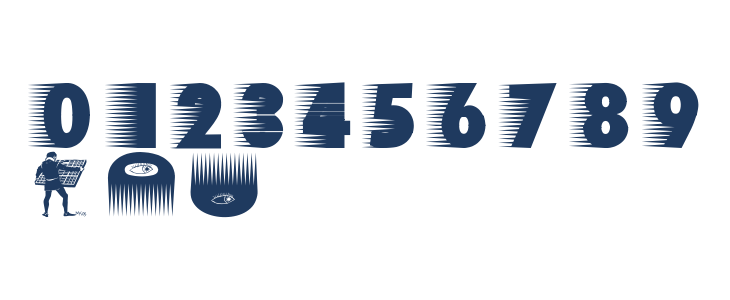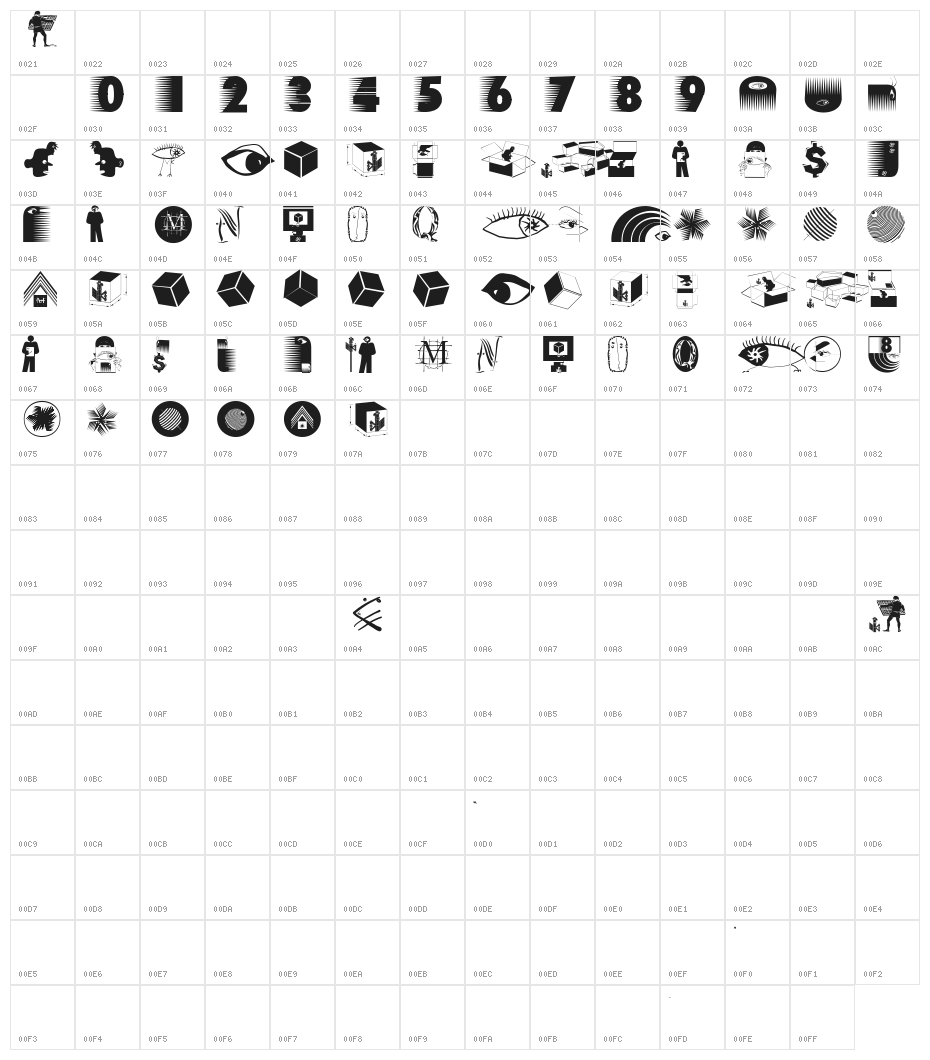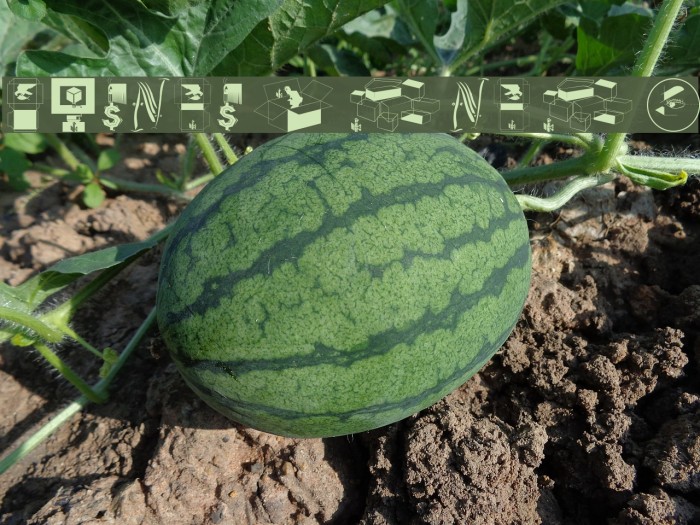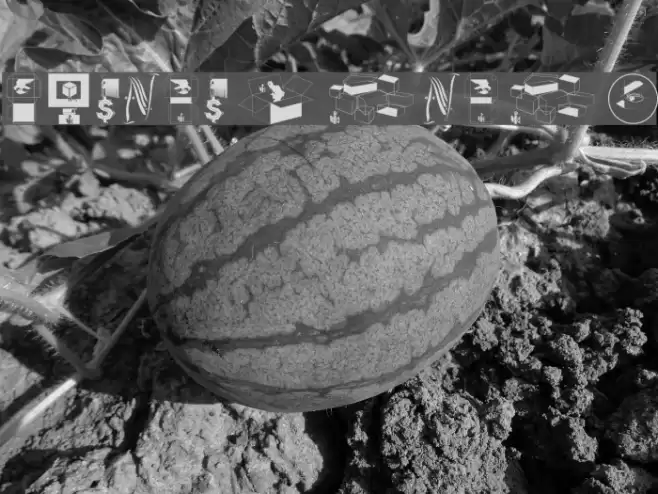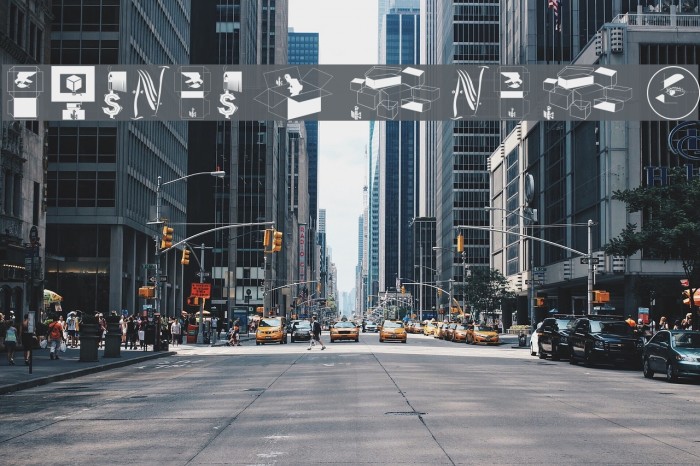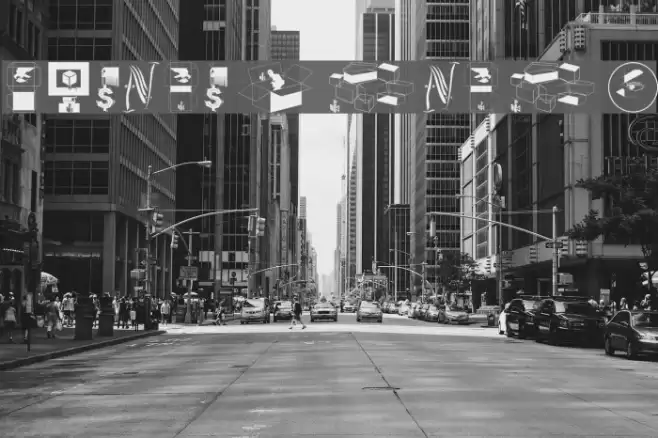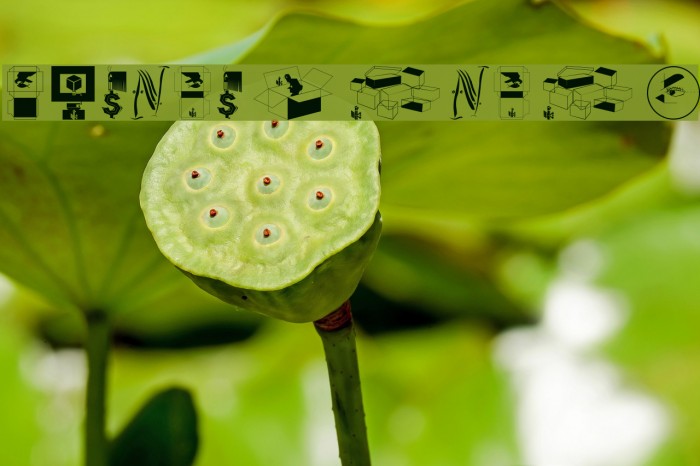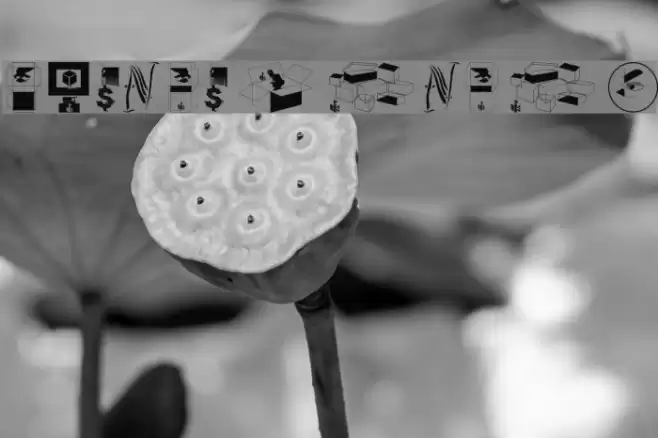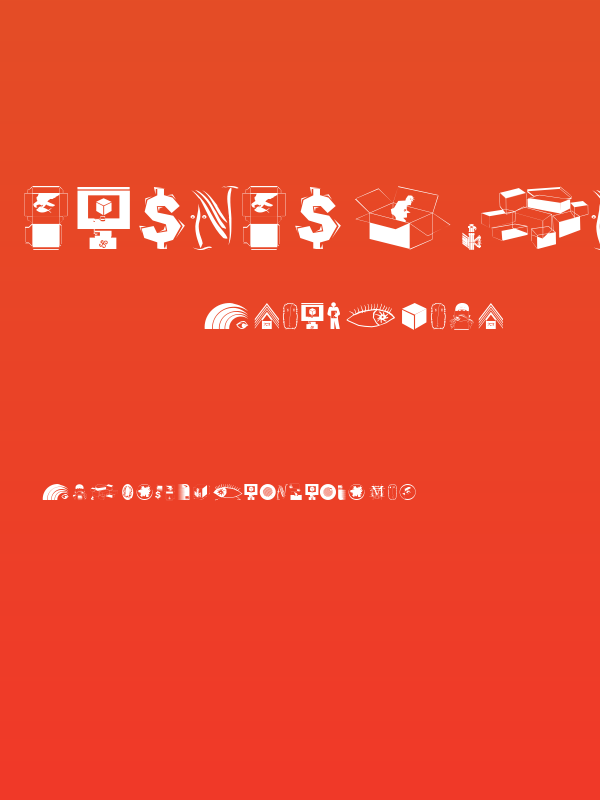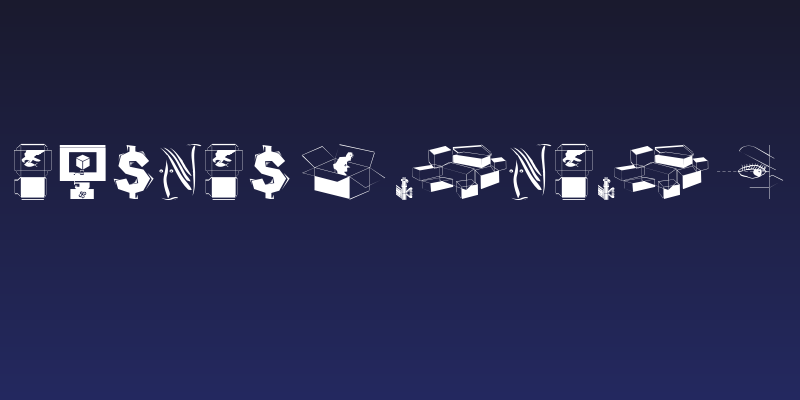
Coincidences Font
Coincidences Description
This is a highly decorative and illustrative font where each character is represented by a unique graphic or icon. The design incorporates a variety of elements such as cubes, eyes, and abstract shapes, creating a visually engaging and eclectic style. The characters are not traditional letterforms but rather artistic representations that convey a sense of creativity and modernity. The numbers are stylized with a gradient effect, adding a dynamic and futuristic touch. This font is more of an art piece than a functional typeface, making it suitable for projects that require a strong visual impact.
Overall StyleModern, Artistic
Use CaseLogos, Posters, Art Projects
Proposed ProjectsIdeal for creative projects, art installations, album covers, or any design work that benefits from a bold and artistic statement.